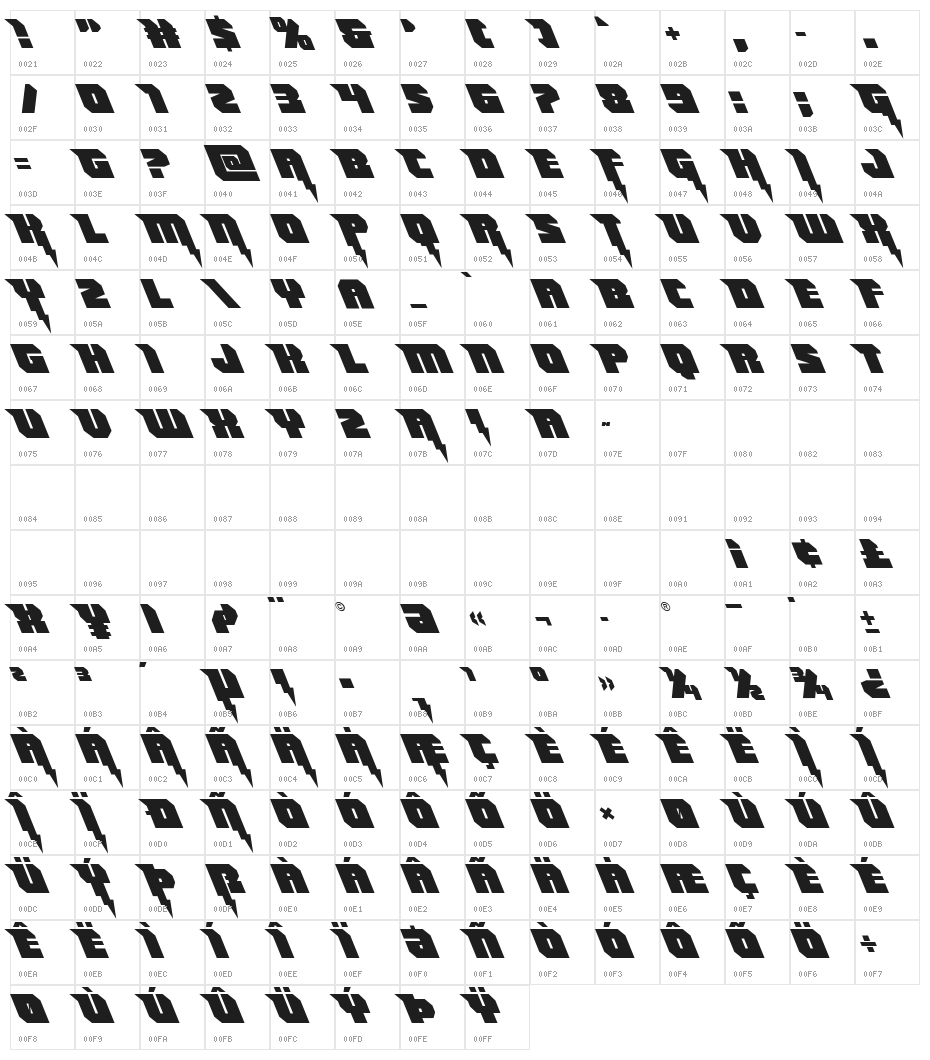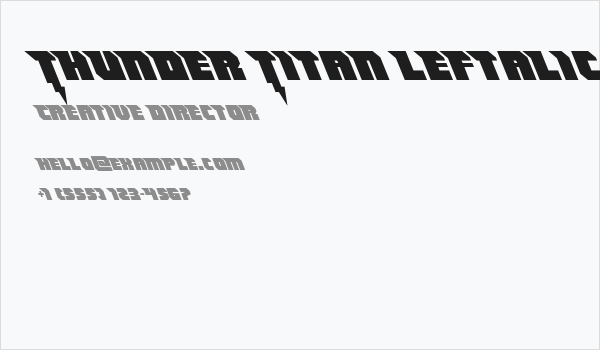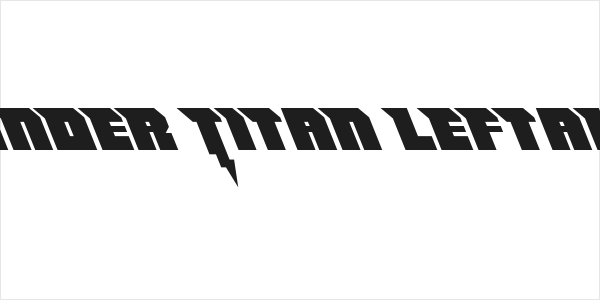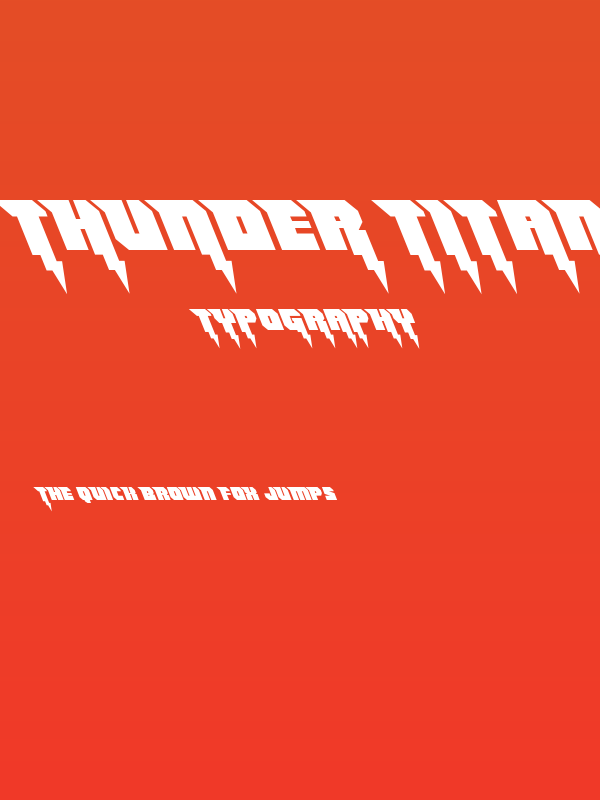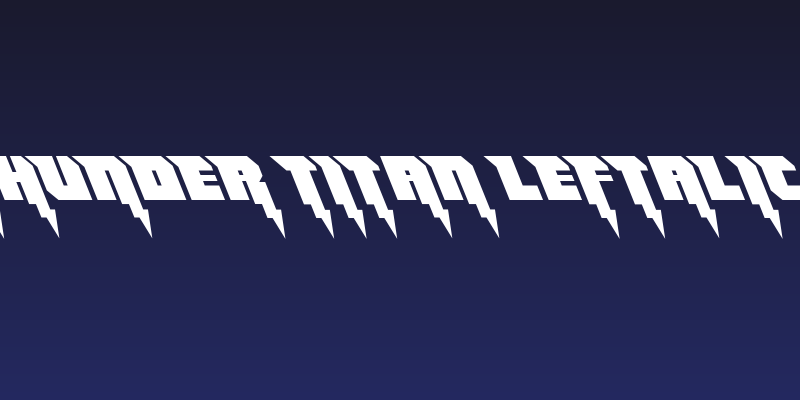
Thunder Titan Leftalic Font
Thunder Titan Leftalic Description
This font features a bold, dynamic design with sharp, angular edges and a distinct lightning bolt motif integrated into each character. The uppercase letters are particularly striking, with a strong presence and a sense of movement, as if they are charged with energy. The lowercase letters maintain this energetic style, though they are slightly more subdued in their angularity. The numbers and special characters follow the same bold and electrifying theme, making them stand out. This font is ideal for projects that require a sense of power and excitement, such as sports branding, action movie posters, or video game titles.